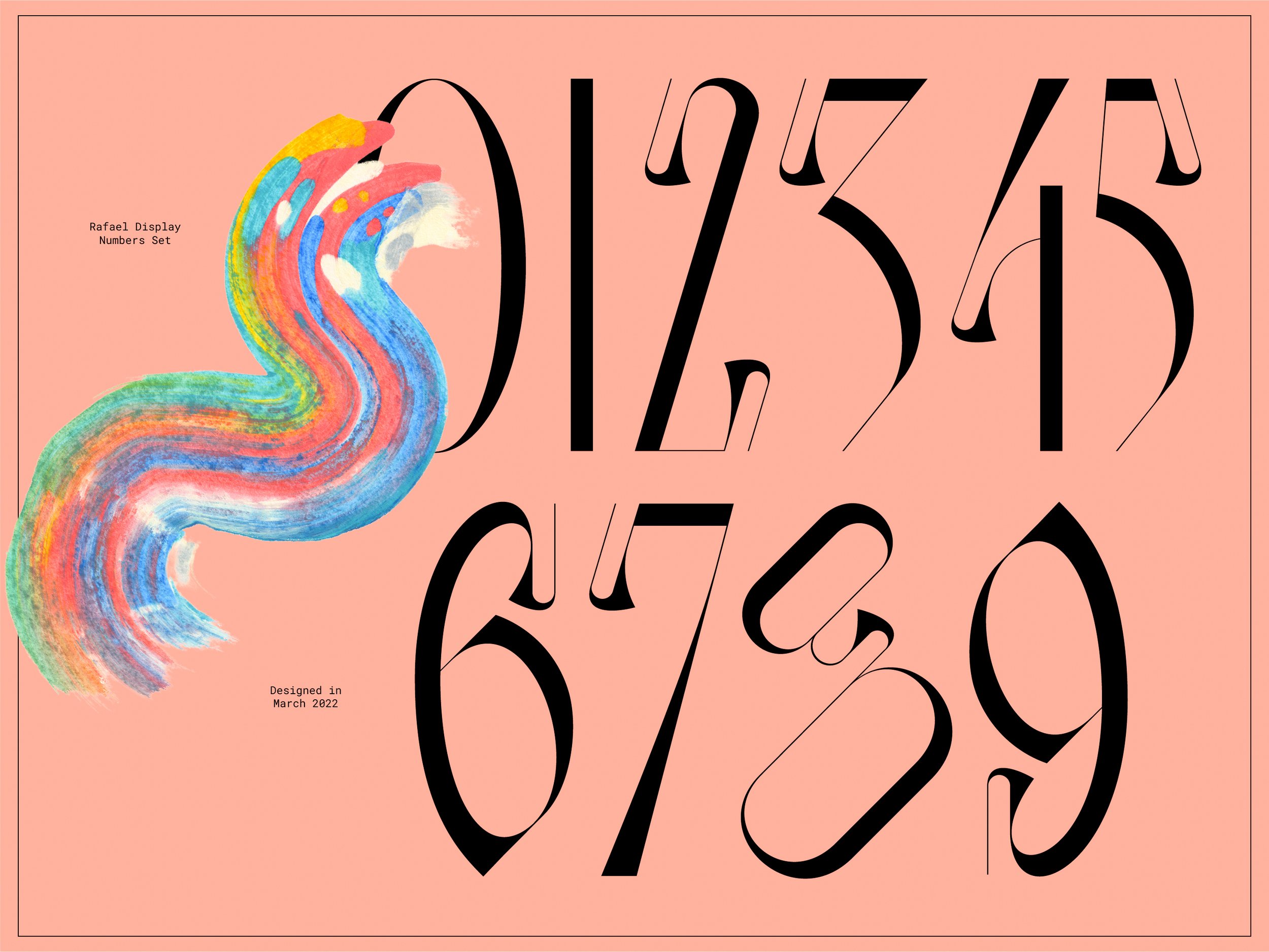
Rafael - Display Typeface
Rafael is a romantic typeface that exists in the liminal space between ornate scribal handwriting and the first humanistic serifs. Inspired by the time in which scrolls transitioned to printed books, Rafael takes visual cues from the immense cultural production of the Renaissance.